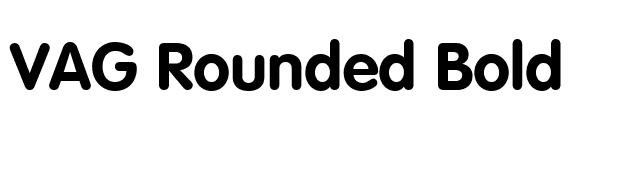
Vag rounded is what is often considered a “corporate” font. Vag rounded black is the perfect font for all your fun designs.
The vag rounded font family was designed for the motor manufacturer, volkswagen ag in 1979 as a corporate typeface. About the font vagrounded thin. It features rounded ends to all strokes.